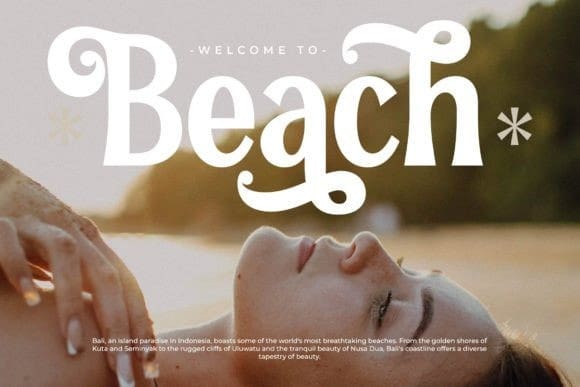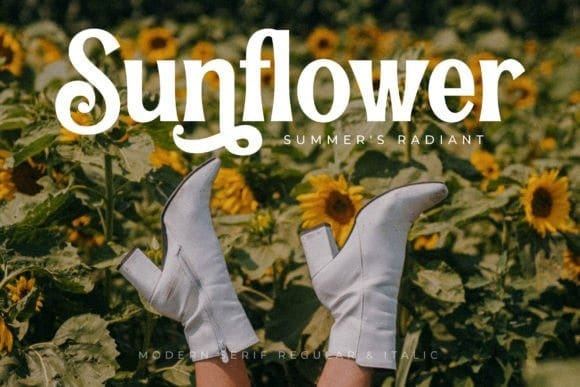
Pearl Hirenha Font
Pearl Hirenha Font, a uniquely stylish serif font, stands out with its distinctive and sophisticated design. Elegant serifs and graceful letterforms create a harmonious balance, infusing a touch of luxury. Ideal for projects that demand a refined and memorable typeface, PearlHirenha elevates any design with timeless sophistication.